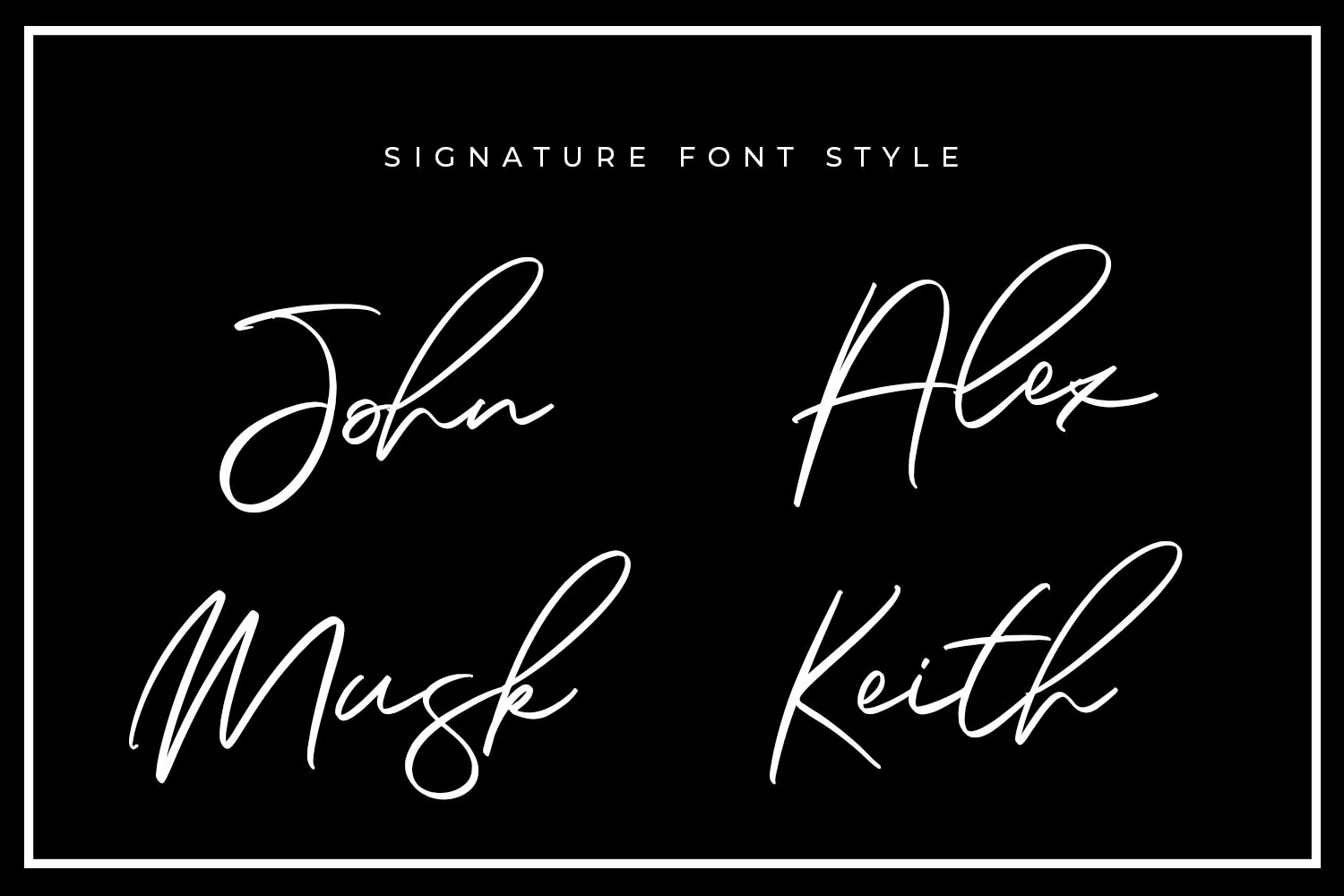
Jaming Signature Brush Font
Give your designs an authentic handcrafted feel. Jaming Signature Brush Font is perfectly suited to logo, stationery, branding, typography quotes, magazine or book cover, website header, clothing, branding, packaging design, restaurant and more.